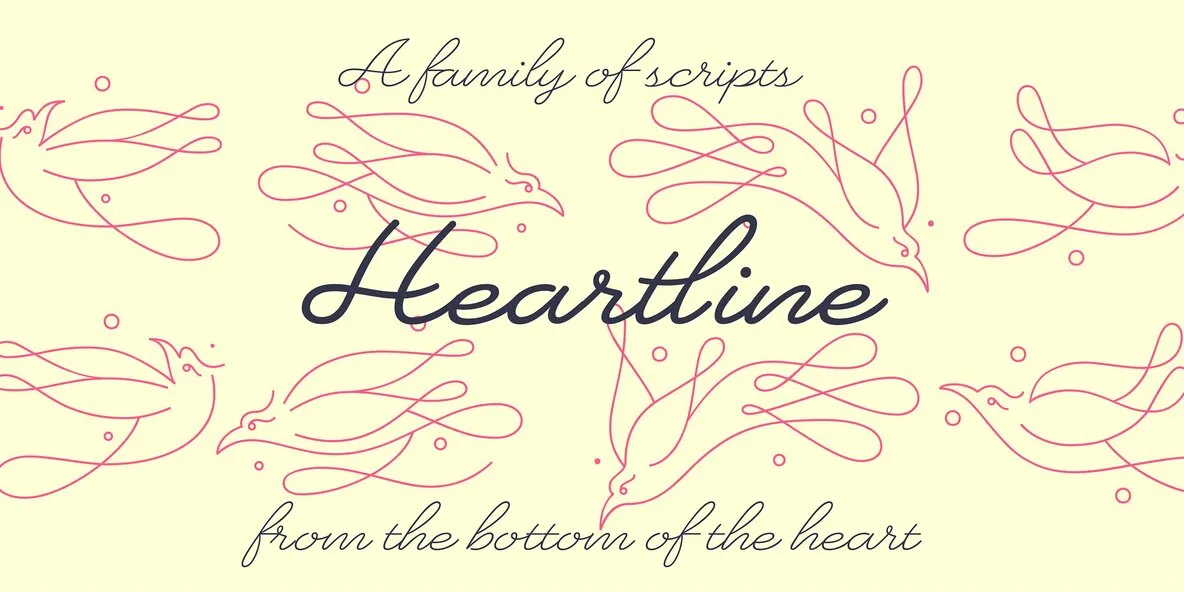
Heartline Script Font
Handwriting Display Family — Personality in Every Stroke
A monolinear, handwriting-inspired font family designed for expressive display use. Ideal for headlines, short texts, and typographic compositions where personality matters, it reads clearly while still feeling personal. Use it when you want calligraphy to have a voice—stationery design, fashion branding, packaging, and beyond.
The true charm of this typeface lies in its flowing swashes and entangled decorative elements. These details enrich the core character set with movement and elegance. The flourishes also invite creative combinations, so you can build distinctive wordmarks, eye-catching titles, and expressive lettering without losing the hand-drawn feel.
Covering a wide range of Pan-European Latin languages, the family supports international work with confidence. It also includes a variable font version, allowing seamless transitions from Extra Light to Bold—perfect for flexible design systems and dynamic layouts.